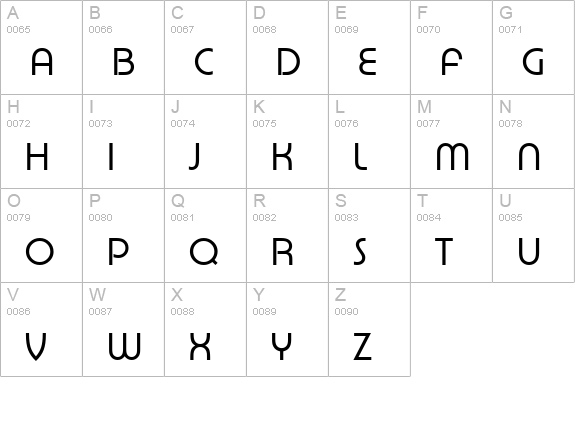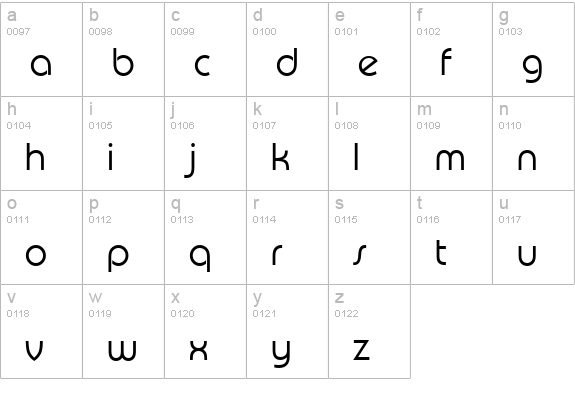
Puente-Light-Regular Font Details
Puente-Light-Regular is a refined, elegant variant in the Puente typeface family \xE2\x80\x94 well suited to elegant body text, refined sub-headings, and luxury branding.
Puente-Light-Regular is a versatile and elegant font that exudes a sense of modern sophistication. With its clean lines and balanced proportions, this typeface is perfect for a wide range of design projects, from branding and advertising to editorial layouts and web design. What sets Puente-Light-Regular apart is its ability to convey both professionalism and creativity, making it a go-to choice for designers looking to make a lasting impression. Whether used for headlines, body text, or graphic elements, this font adds a touch of refined style to any project. And the best part? Puente-Light-Regular is completely free to download at FontsMarket.com! So go ahead and elevate your designs with this stylish and versatile typeface without breaking the bank. Download Puente-Light-Regular today and unlock a world of design possibilities.